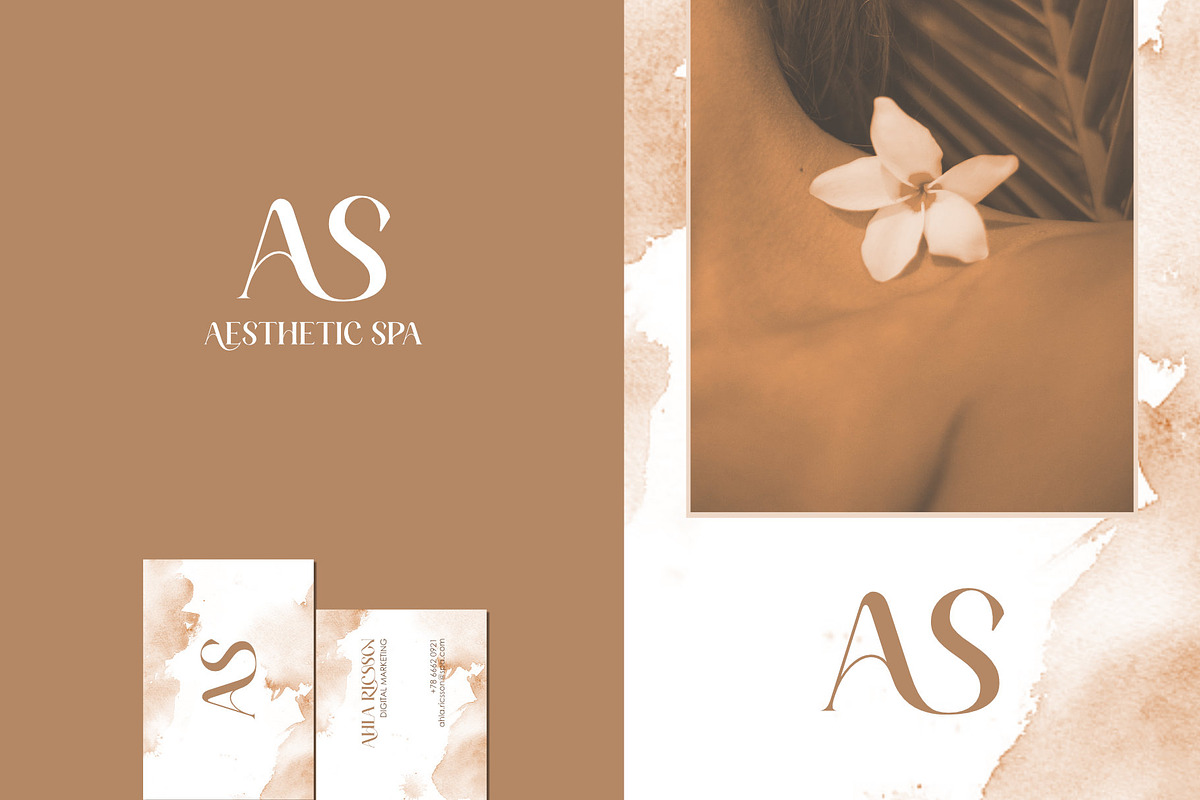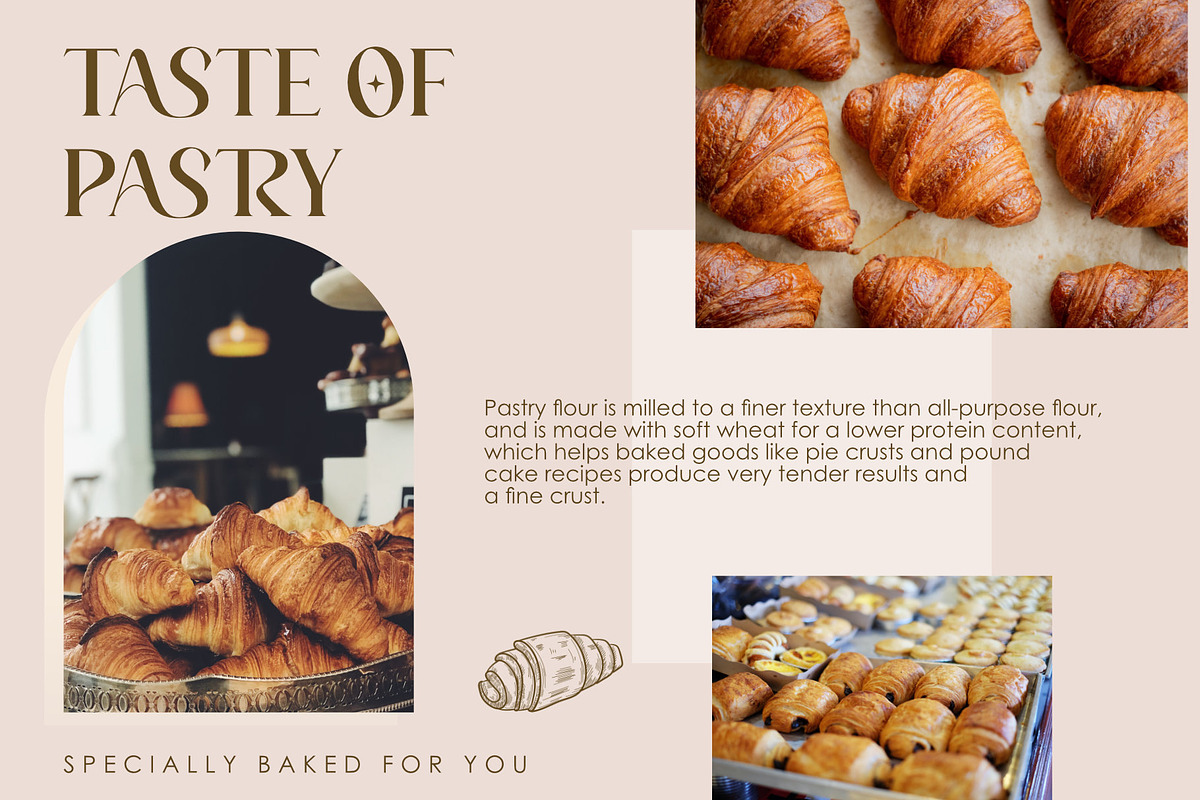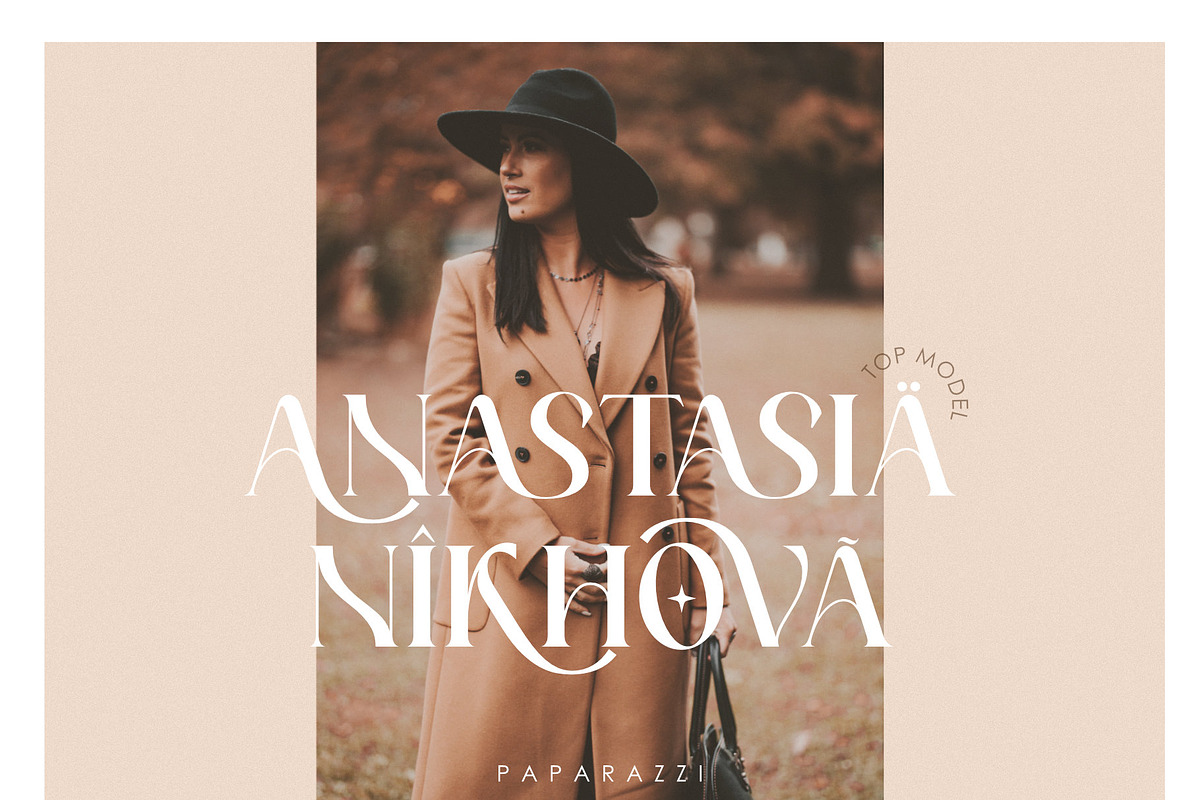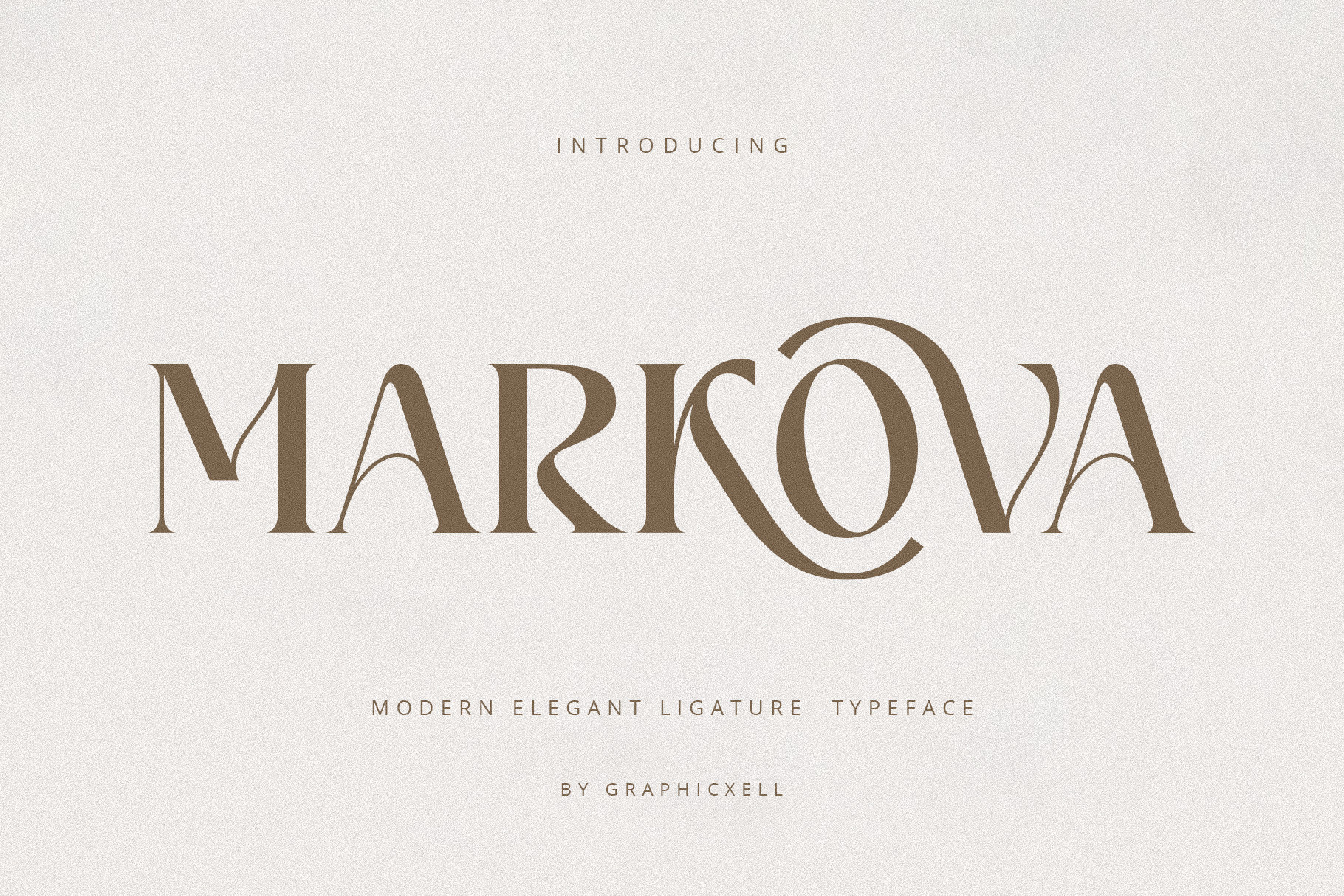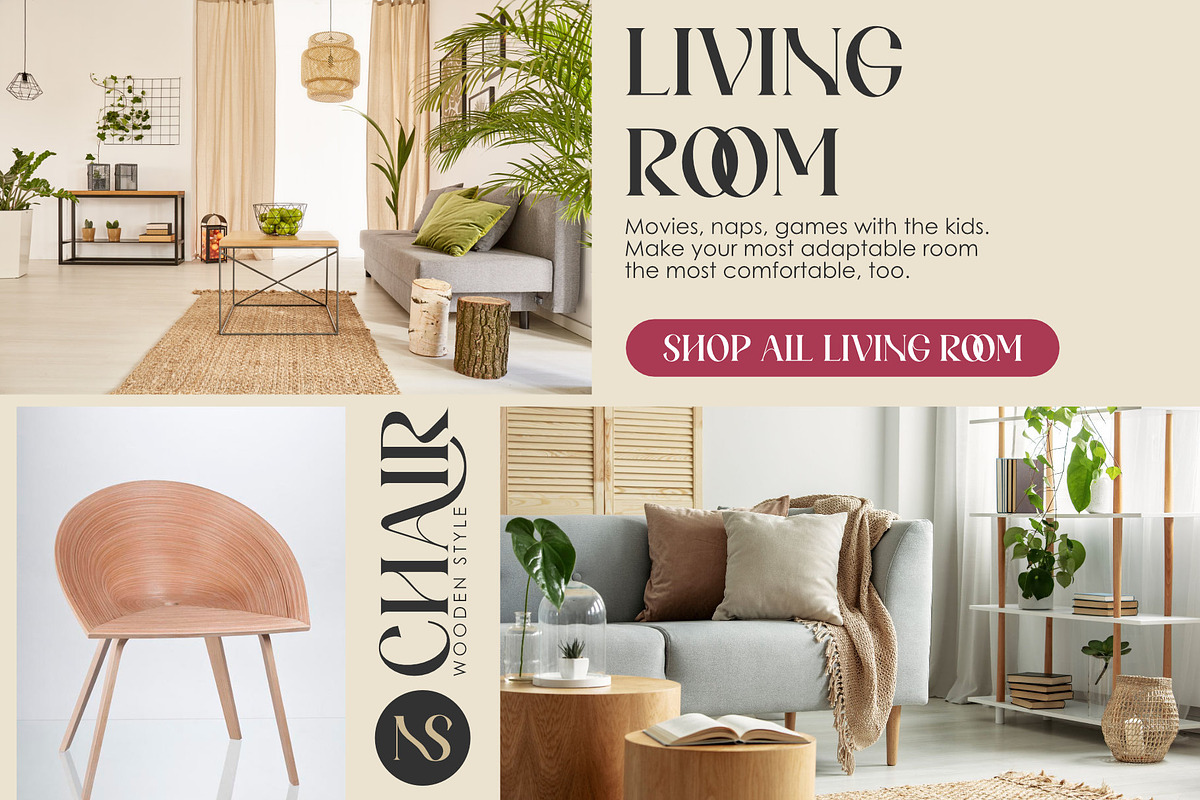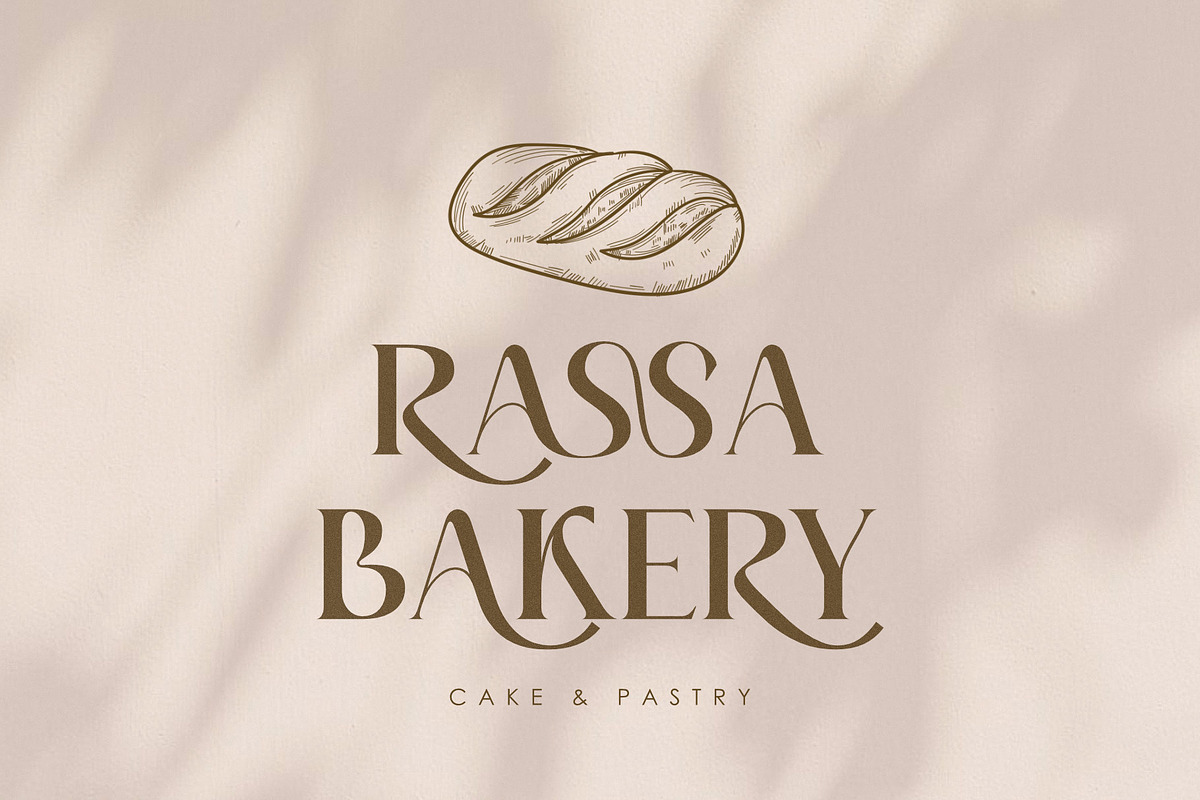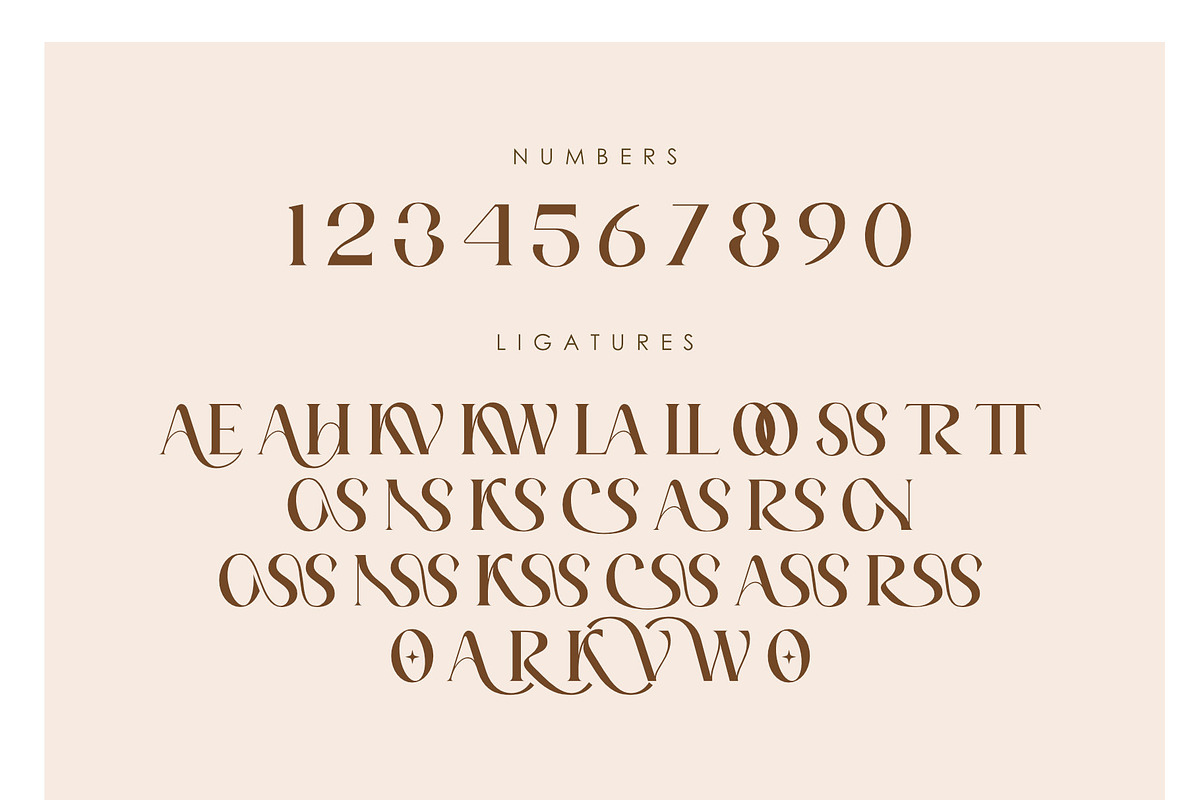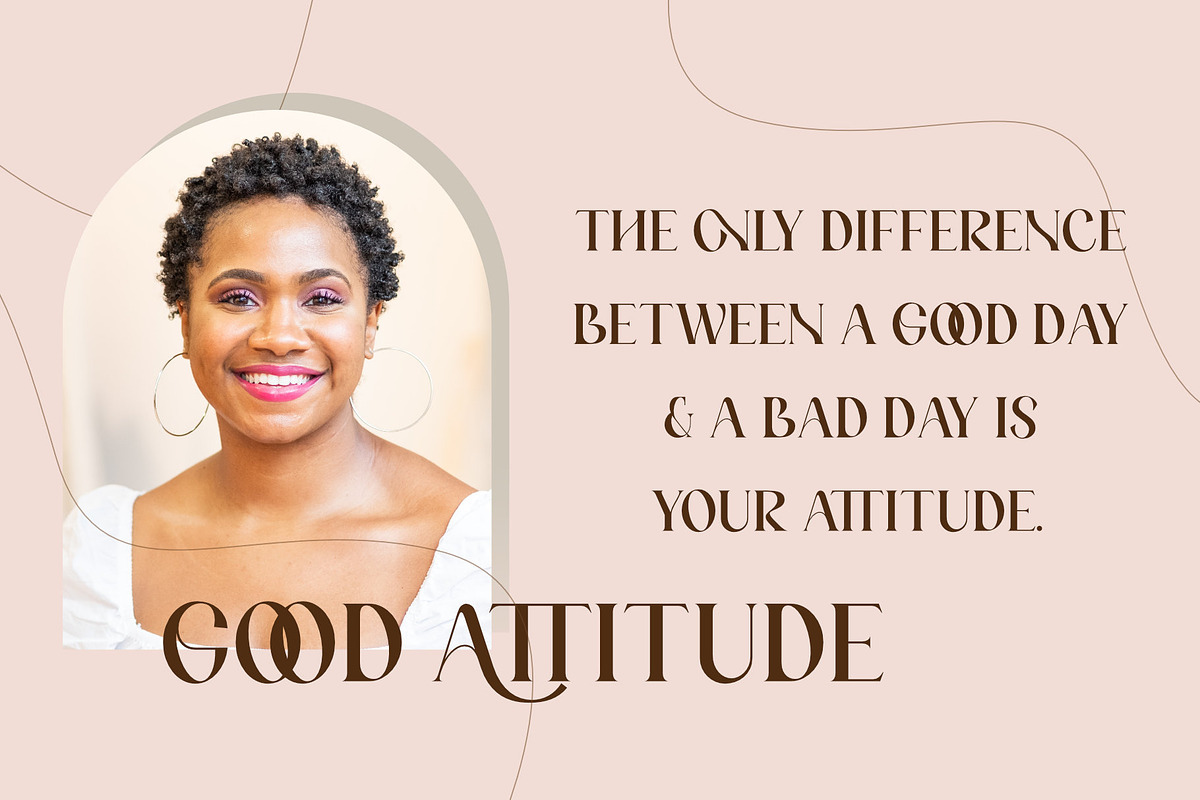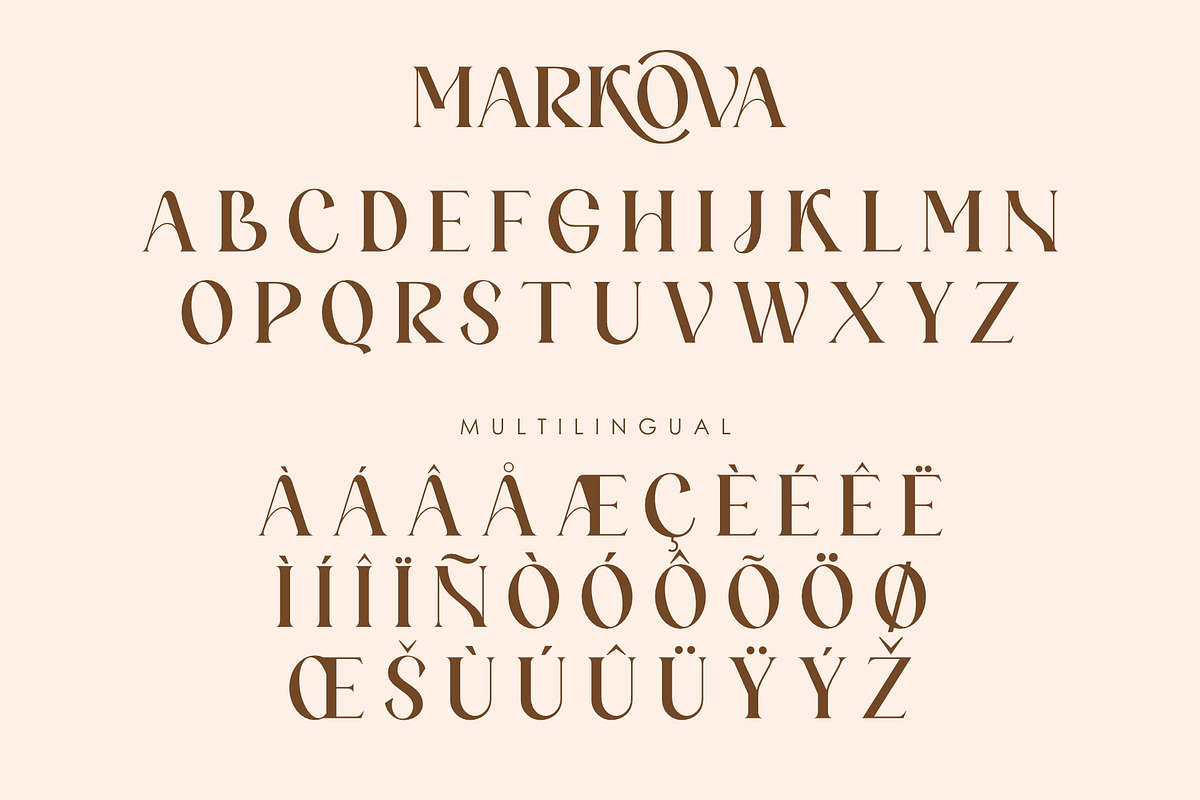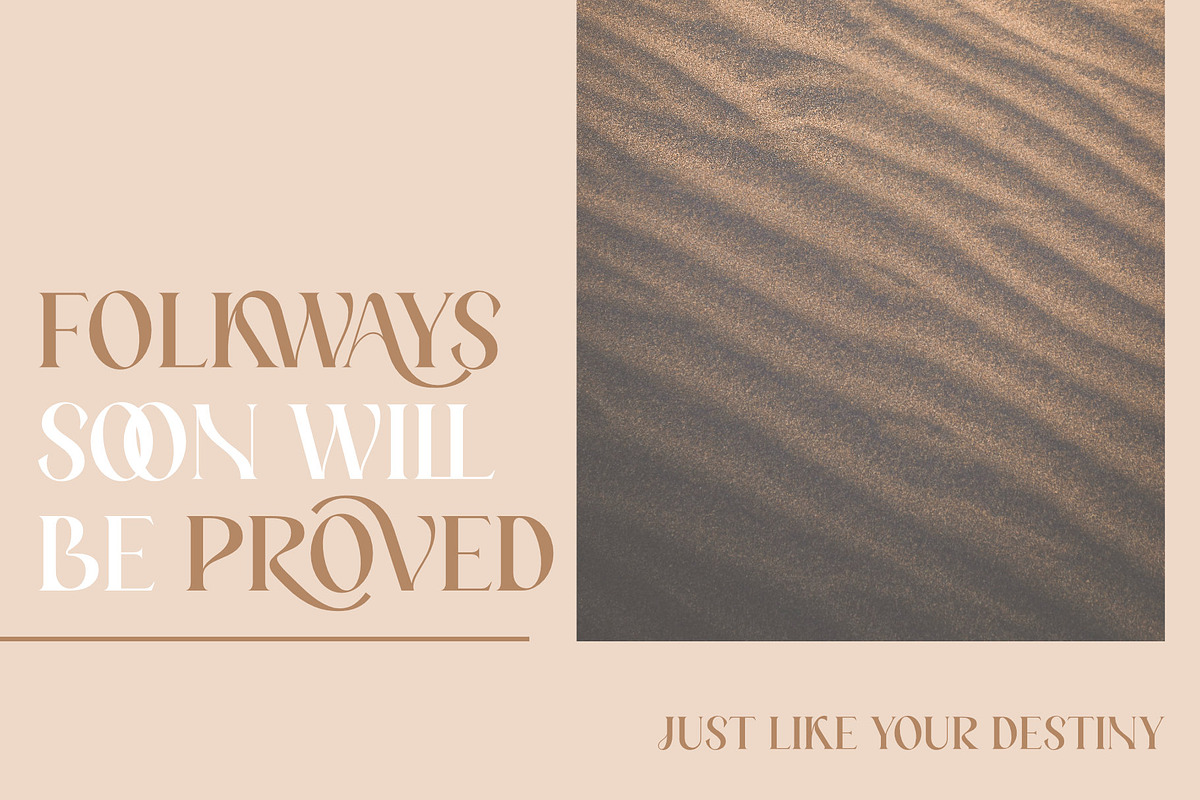
Markova Serif Font
Meet Markova Ligature Serif Font, a modern serif typeface designed for style and clarity. This font combines classic serif charm with a fresh, modern look. Because of Markova’s balanced letter shapes, your branding, logos, and layouts will appear sharp and professional.
What makes Markova special are its smooth ligatures. These connected letterforms give your text a natural flow and add a creative touch. Therefore, it works perfectly for magazines, websites, boutique brands, and product packaging. As a result, Markova grabs attention and keeps readers engaged.
Markova fits well in many projects. For example, use it for food brands, fashion labels, ads, or editorial work. Also, it pairs easily with other fonts, so you can create clean, stylish designs without effort.
Why choose Markova Ligature Serif Font?
First, it is a modern serif with timeless style.
Second, smooth ligatures improve text flow.
Third, it suits logos, magazines, websites, and packaging.
Additionally, balanced letter shapes allow versatile use.
It works great for boutique, fashion, and food branding.
Finally, it boosts both readability and style.
Markova lets your designs speak with confidence and elegance. It works well in print and on screens. Whether you design for luxury brands or trendy startups, Markova will raise the quality of your work.